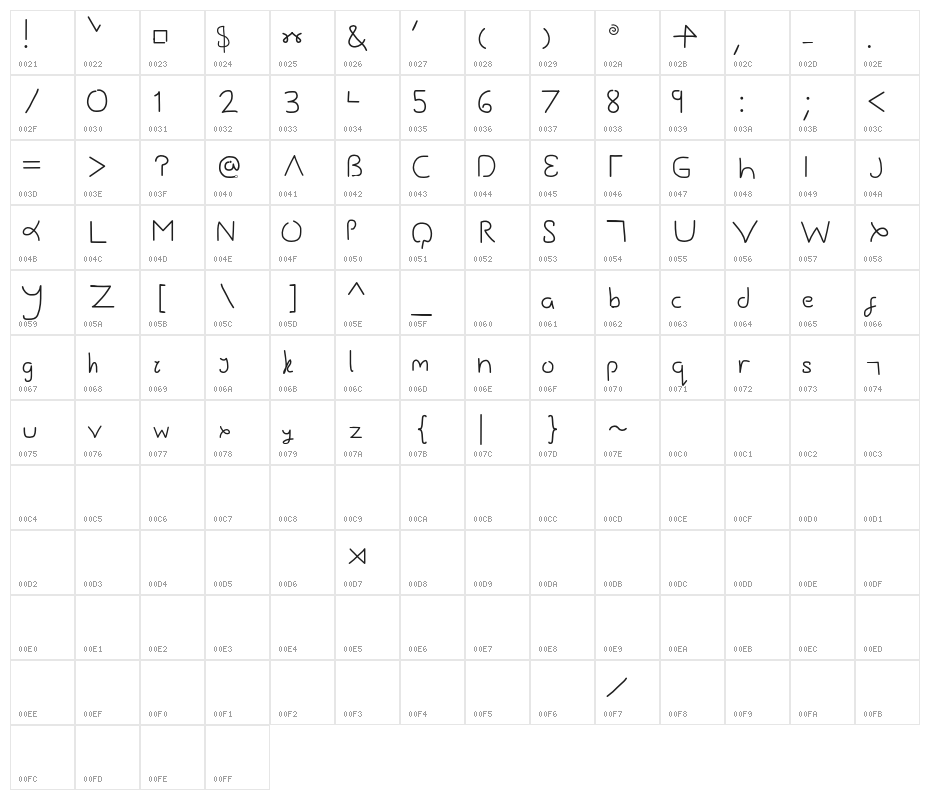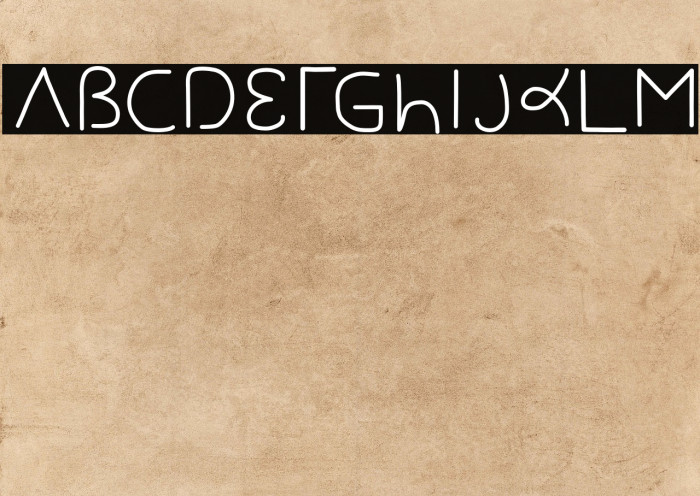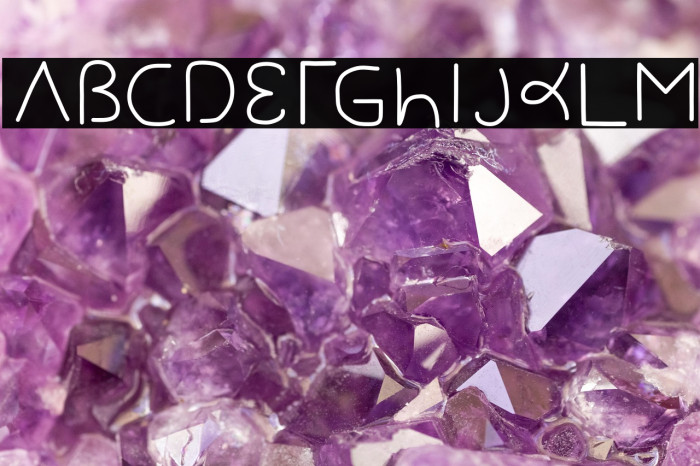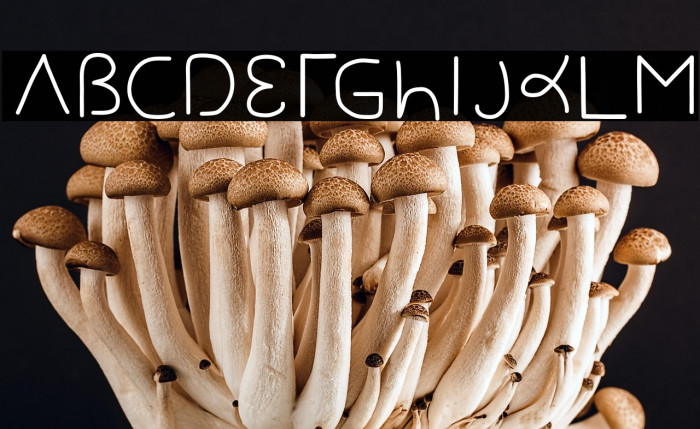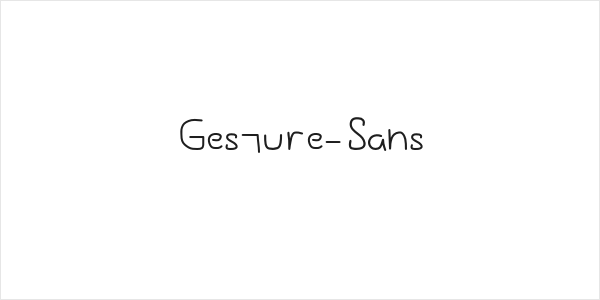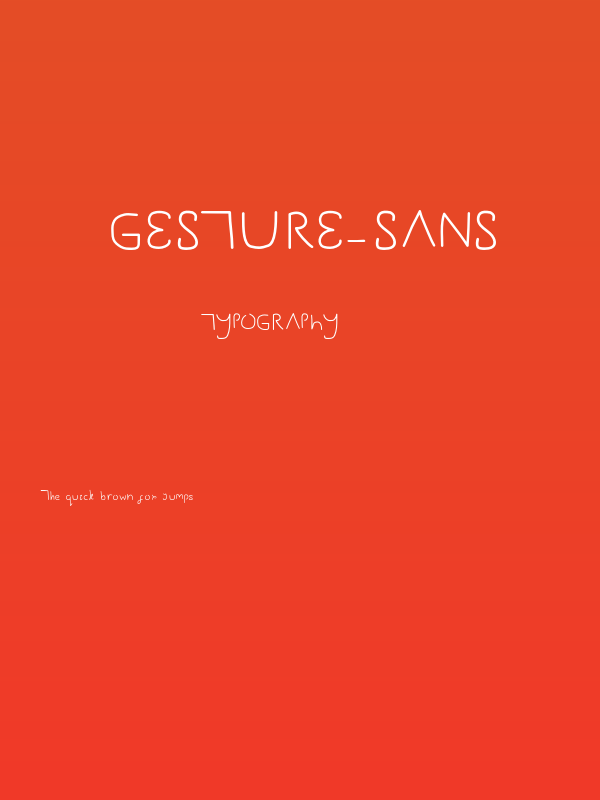
Gesture-Sans Font
Gesture-Sans Description
This font features a playful and whimsical design, characterized by its unique, hand-drawn appearance. The letters have a casual, flowing style with a slight tilt, giving them an informal and friendly feel. The strokes are consistent in width, providing a uniform look across all characters. The uppercase and lowercase letters maintain a consistent style, with rounded edges and smooth curves. Numbers and special characters are designed to match the overall aesthetic, ensuring a cohesive appearance. This font is ideal for projects that require a touch of creativity and personality.